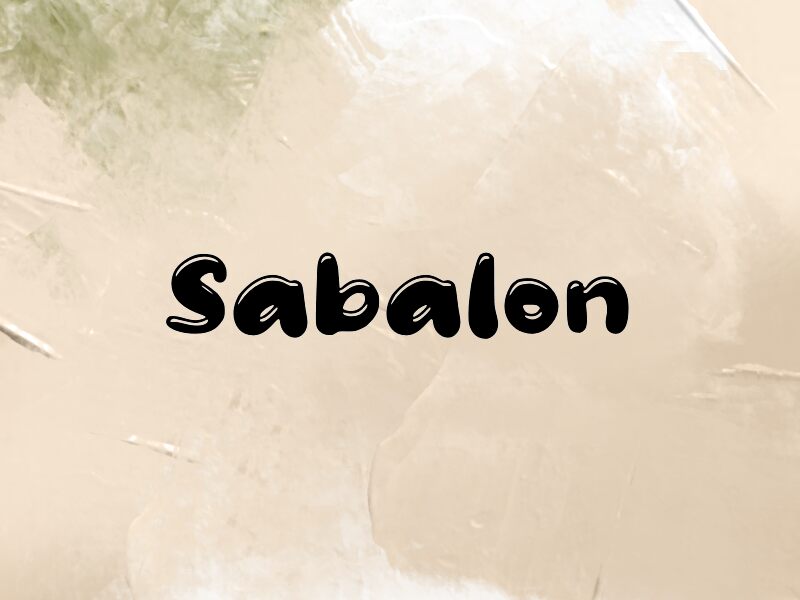
Sabalon
Sabalon font by wep is a free cartoon display typeface that looks like it’s been piped out of a glossy tube of paint or bubble gum. Its rounded, chunky letters swell with inky shine and soft edges, giving every word a squishy, touchable feel. The bold weight and tight rhythm keep it readable even when you stack or curve the text for louder, bouncier layouts.
Using Sabalon, your titles instantly feel playful and a little messy—in the best way. This free font shines on kids’ posters, slime or candy branding, party invitations, game logos, thumbnails, and fun social graphics. Set it big so the shiny highlights really pop, and pair Sabalon with a clean, light sans-serif for body copy to keep the overall design from feeling too heavy.